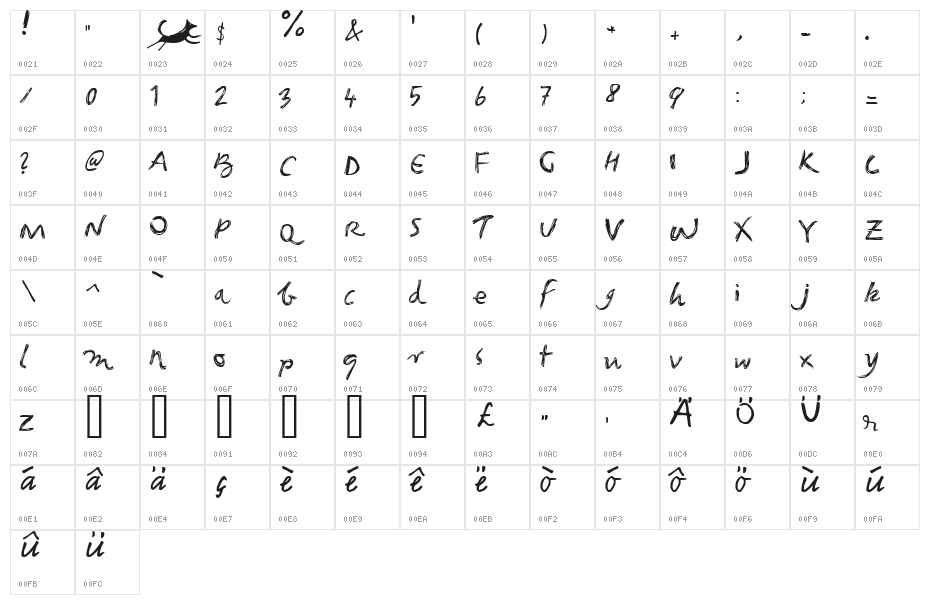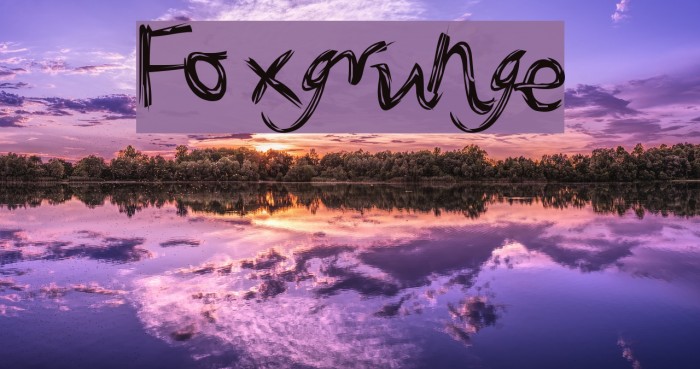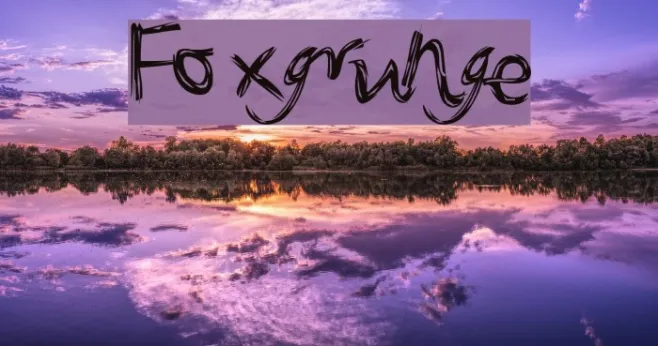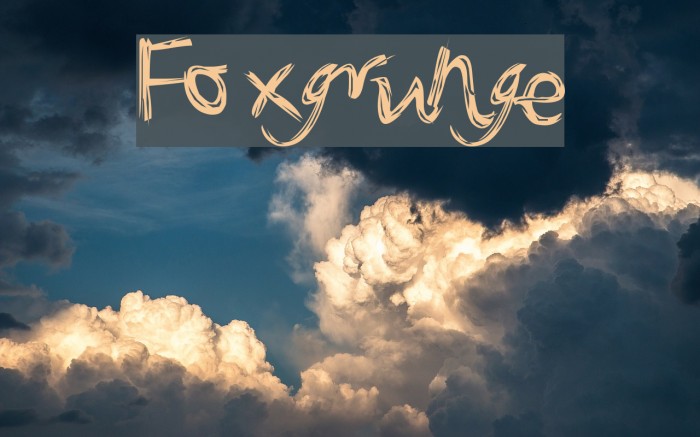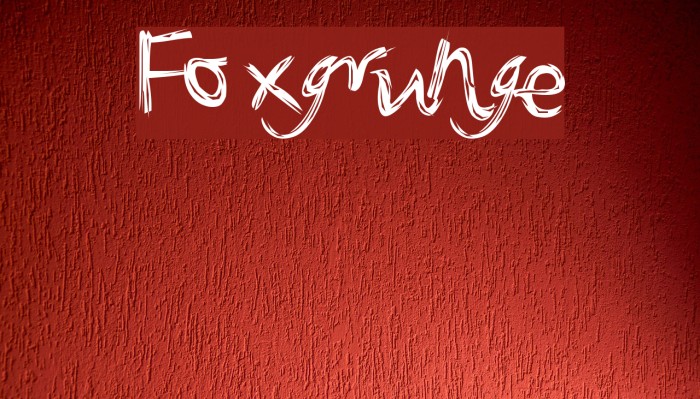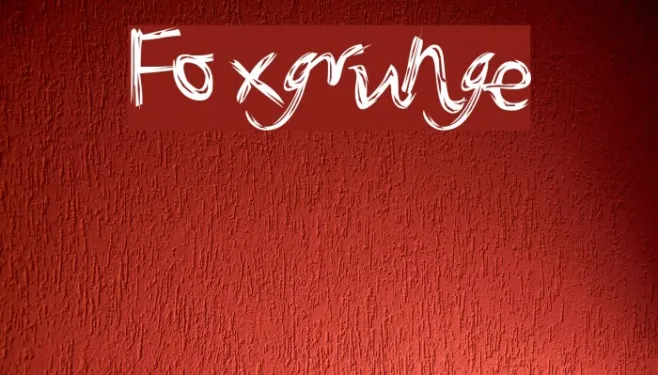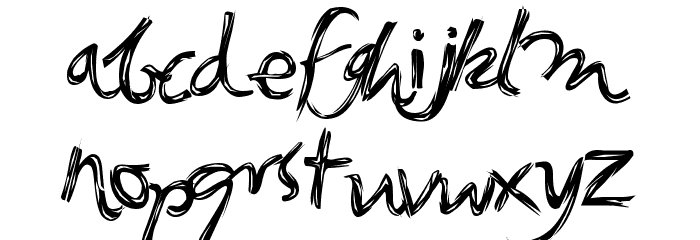
Foxgrunge Font
Foxgrunge Description
This font features a grunge and distressed style, characterized by its rough, jagged edges and dynamic strokes. The letters appear as if they have been hastily sketched with a brush, giving them an energetic and rebellious feel. The uppercase and lowercase letters maintain a consistent style, with the uppercase being slightly more pronounced. Numbers and special characters follow the same aesthetic, adding to the font's cohesive look. The overall appearance is bold and expressive, making it suitable for projects that require a strong visual impact.
| Overall Style | Grunge, Energetic, Rebellious |
| Proposed Projects | Ideal for music album covers, edgy posters, streetwear branding, and any project needing a bold, rebellious touch. |